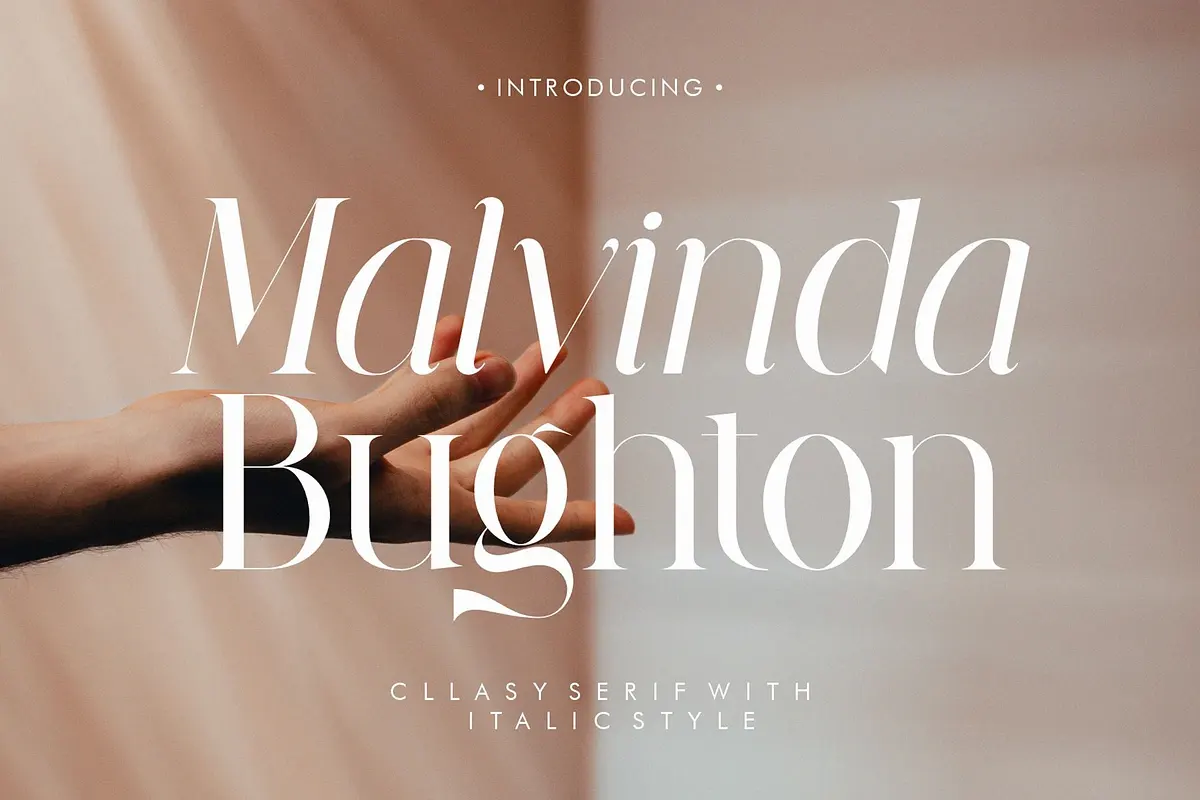
This sophisticated font is perfect for luxury magazine layouts, high-end book typography, elegant wedding invitations, premium brand identities, upscale restaurant menus, fine art gallery materials, classical music programs, and distinguished corporate communications. Its refined character makes it ideal for projects requiring timeless elegance and scholarly sophistication.
Malvinda Bughton Classy Serif With is exciting because it masterfully combines traditional serif craftsmanship with contemporary refinement, featuring carefully balanced proportions and subtle contrast variations that create exceptional readability while maintaining dignified presence. The font showcases classical typography principles with modern optimization, ensuring both historical authenticity and current functionality. Its distinguished personality conveys intelligence, trustworthiness, and cultural sophistication.
The Malvinda Bughton Classy Serif With family includes multiple weights from light to bold, along with italic variations and extended character sets. Many versions feature stylistic alternates, elegant ligatures, and special glyphs that enhance typographic flexibility and classical appeal.
Whether you're designing for prestigious institutions, luxury publications, or refined cultural events, Malvinda Bughton Classy Serif With Free Download delivers unmatched elegance with scholarly credibility. This typeface elevates any text with its distinguished character and versatile sophistication, making it suitable for both formal academic applications and luxury commercial projects. Its exceptional legibility across various sizes ensures consistent performance while its classical beauty adds memorable distinction to brands and publications that value tradition, quality, and intellectual refinement in their visual communications.